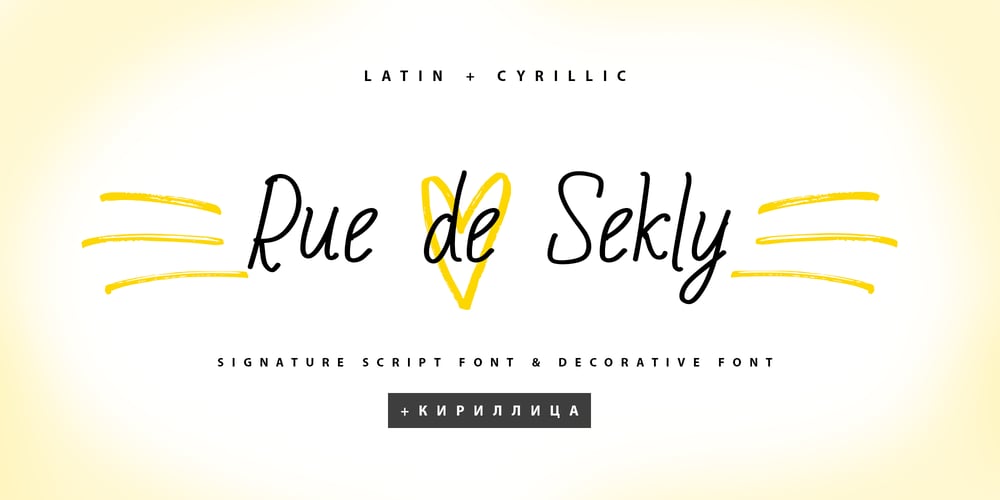
Rue De Sekly Cyrillic Font Family was designed by Iryna Dviliuk and published by Ira Dvilyuk. Rue De Sekly Cyrillic contains 2 styles and family package options. Rue de Sekly playful script font Cyrillic is a pretty monoline kids font that will look gorgeous on all your designs, wedding stationery, love stories, branding materials, monoline logos, pretty teenage stickers, business and wedding cards, calligraphy Insta quotes, elegant fashion sketches, calligraphy love monograms and much more.Rue de Sekly playful script font contains the Cyrillic glyphs too.Multilingual Support for 82 languages: Abaza, Avar, Adyghe, Afrikaans, Agul, Albanian, Asturian, Basque, Belarusian, Bulgarian, Breton, Buryat, Valencian, English, Estonian, Faroese, Finnish, French, Frisian, Gaelic (Scottish), Galician, German, Hungarian, Icelandic, Indonesian, Ingush, Irish, Italian, Kabardino-Circassian, Karakalpak (Lat.), Karachay-Balkar, Karelian, Kazakh, Komi-Permyak, Komi-Zyryan, Kurdish (Lat.), Kumyk, Lak, Latin, Latvian, Lezgin, Lithuanian, Maori, Mongolian (Kyrgyz.), Mordovian-Erzya, Mordovian-Moksha, Nogai, Norwegian, Occitan, Polish, Portuguese, Rhaetian-Romance, Romanian, Russian, Rutul, Sami Lule, Slovak, Slovenian, Spanish, Swedish, Tabasaran, Tat, Tswan, Tuvinian, Turkmen (Lat.), Ukrainian, Uzbek (Lat.), Valencian, WelshWorks perfectly on the Canva platform.For Cricut & Silhouette recommended.Thanks!